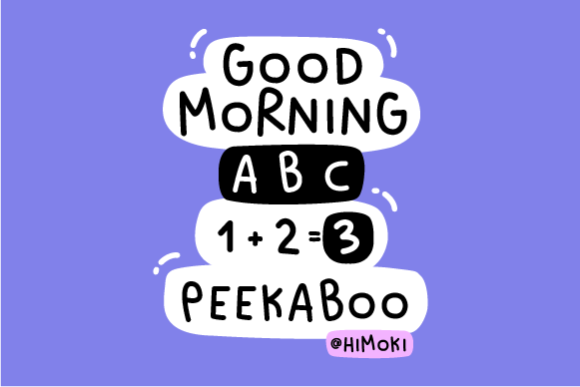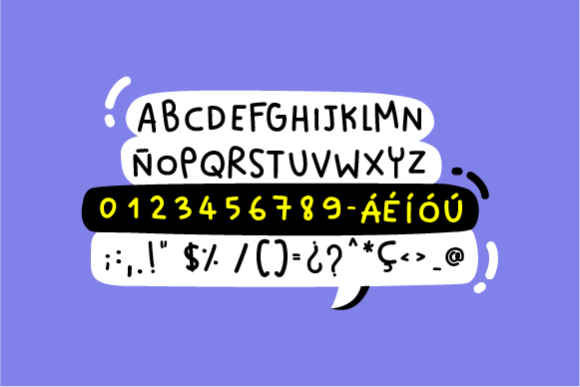
Preschool Teacher Font
db-ku.com - Script & Handwritten -- Preschool Teacher embodies fun, quirkiness and authenticity. This enchanting handwritten font will turn any creative idea into a true standout. Get creative with its childlike playfulness, and use it to brighten up any kids and school project!